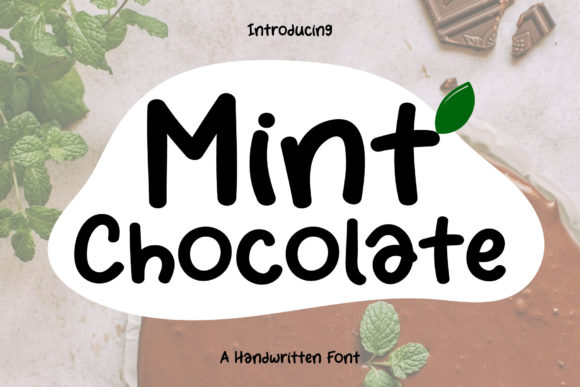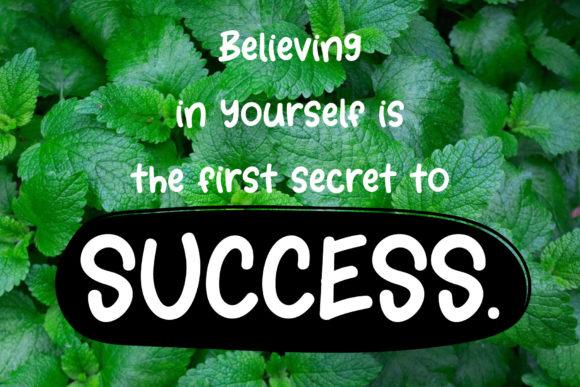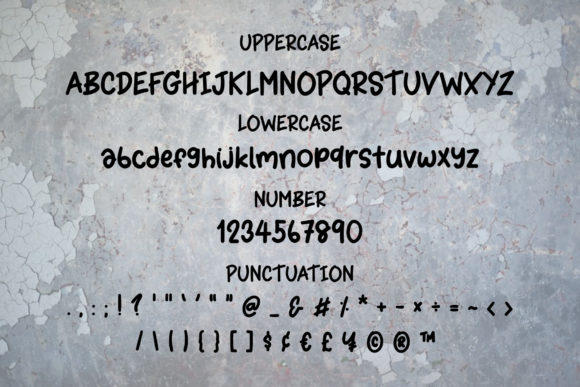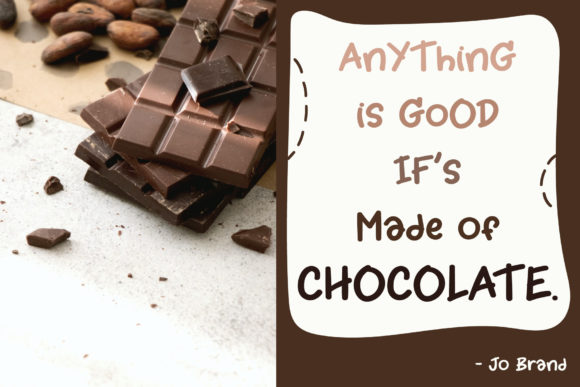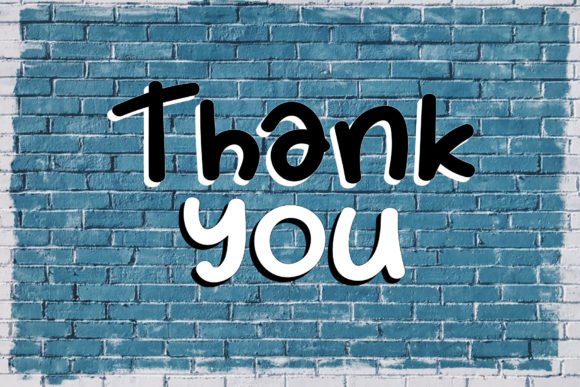
About Mint Chocolate Font
“Mint Chocolate” is a cute, friendly, and fun handwritten font that adds a delightful touch to your designs. With its playful and lively style, this font is perfect for bringing a sense of joy and positivity to your creative projects.
The charm of “Mint Chocolate” lies in its whimsical letterforms and hand-drawn appearance. The irregular strokes and slightly imperfect shapes give it a sense of authenticity and a personal touch. Whether you’re designing greeting cards, invitations, posters, or any other project that requires a warm and inviting feel, “Mint Chocolate” will make your designs stand out.
The friendly nature of “Mint Chocolate” makes it suitable for a variety of contexts. It can be used for children’s book illustrations, playful branding, social media graphics, and more. Its light-hearted and approachable style creates a welcoming atmosphere, inviting the viewer to engage with your designs.
The fun and vibrant character of “Mint Chocolate” is enhanced by its lively and energetic appearance. The bouncy letterforms and dynamic strokes convey a sense of movement and enthusiasm. This font brings a sense of playfulness and positivity to your designs, making it ideal for projects that aim to evoke happiness and enjoyment.
Whether you’re designing for print or digital platforms, “Mint Chocolate” adds a touch of liveliness to your typography. Its legible letterforms ensure readability, while its unique style adds visual interest. This font works well as both headline and body text, allowing you to maintain consistency throughout your design.
In summary, “Mint Chocolate” is a cute, friendly, and fun handwritten font that infuses your designs with a sense of joy and playfulness. Its sweet and lively style is perfect for brightening up your projects, whether you’re creating greeting cards, invitations, posters, or other designs. With its charming and hand-drawn appearance, “Mint Chocolate” adds a delightful touch to any creative endeavor.